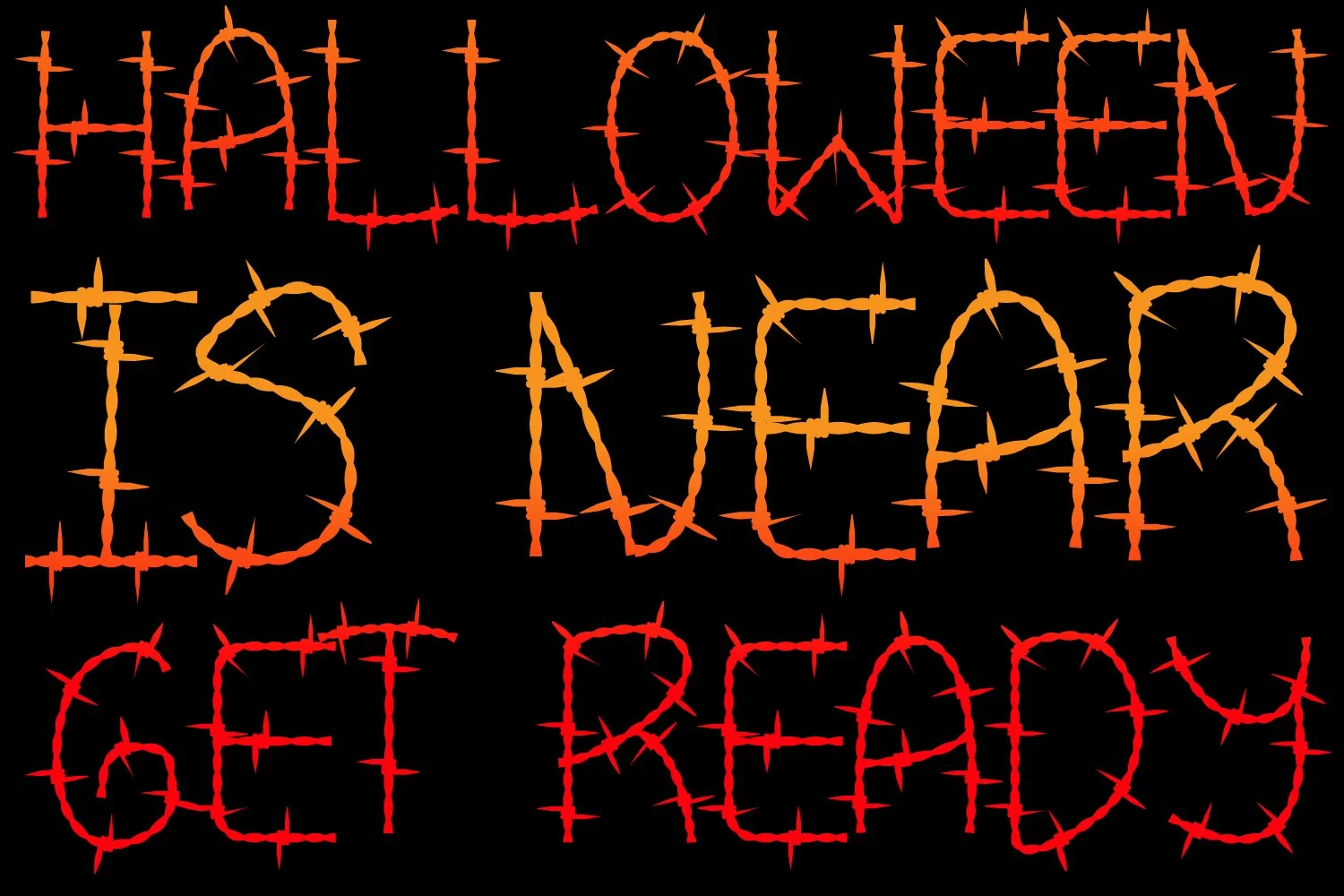
Barb Wire : A Fun Font For Projects
Halloween fonts are now here! Presenting first on my list is barb wire a perfect font for you funny party, cards and anything you like. This font is specially for the kids parties and horror related stuff.